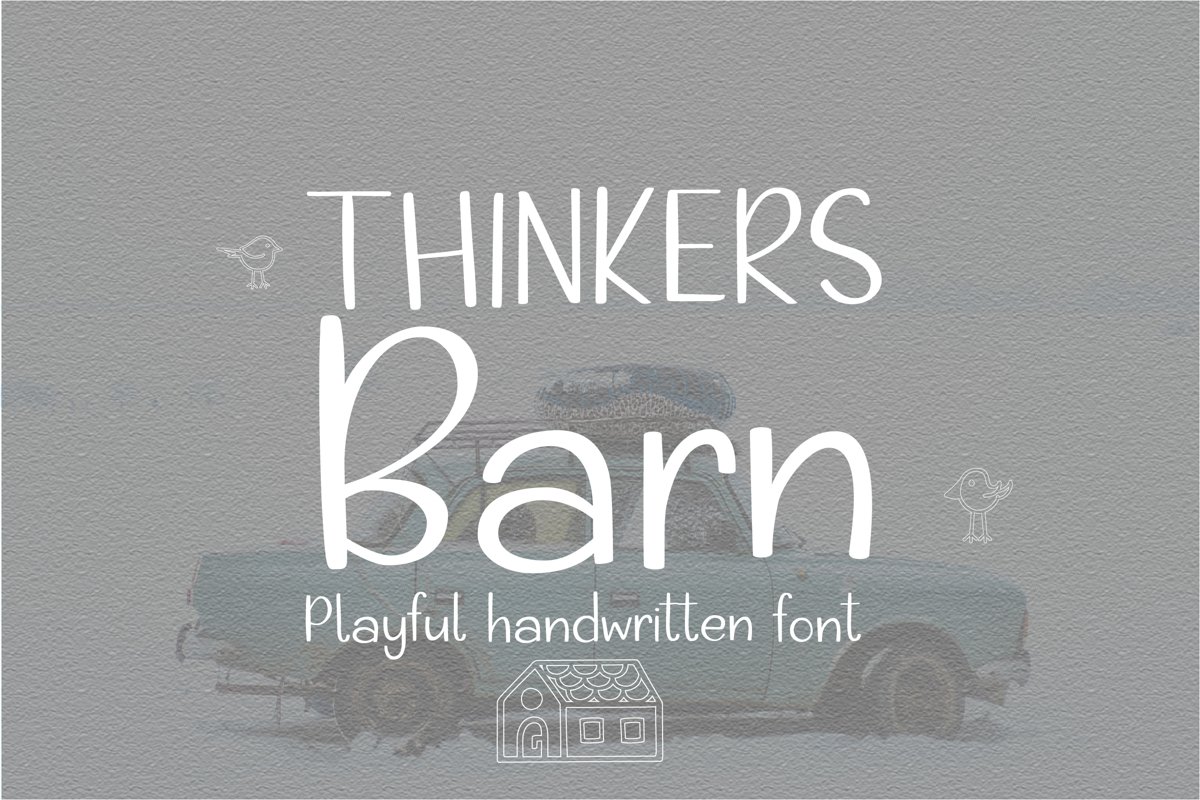
Thinkers Barn
ThinkersBarn
Thinkers Barn is a cute handwritten font that supports different European languages. It is perfect for any projects that requite crisp and clear handwriting. The addition of stylistic sets makes it appear more natural, or you can use the original version for a uniform and streamlined appearance.